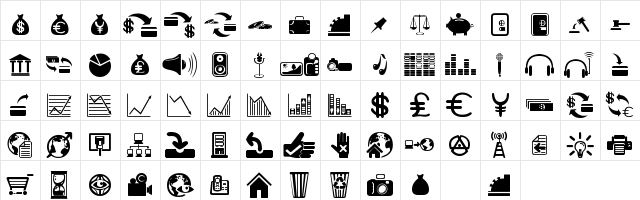
GADing4 Regular
| Designer | GA Soft |
Design Context for GADing4 Typeface
GADing4 is a composed and adaptable typeface that performs quietly and consistently across a wide range of design contexts.